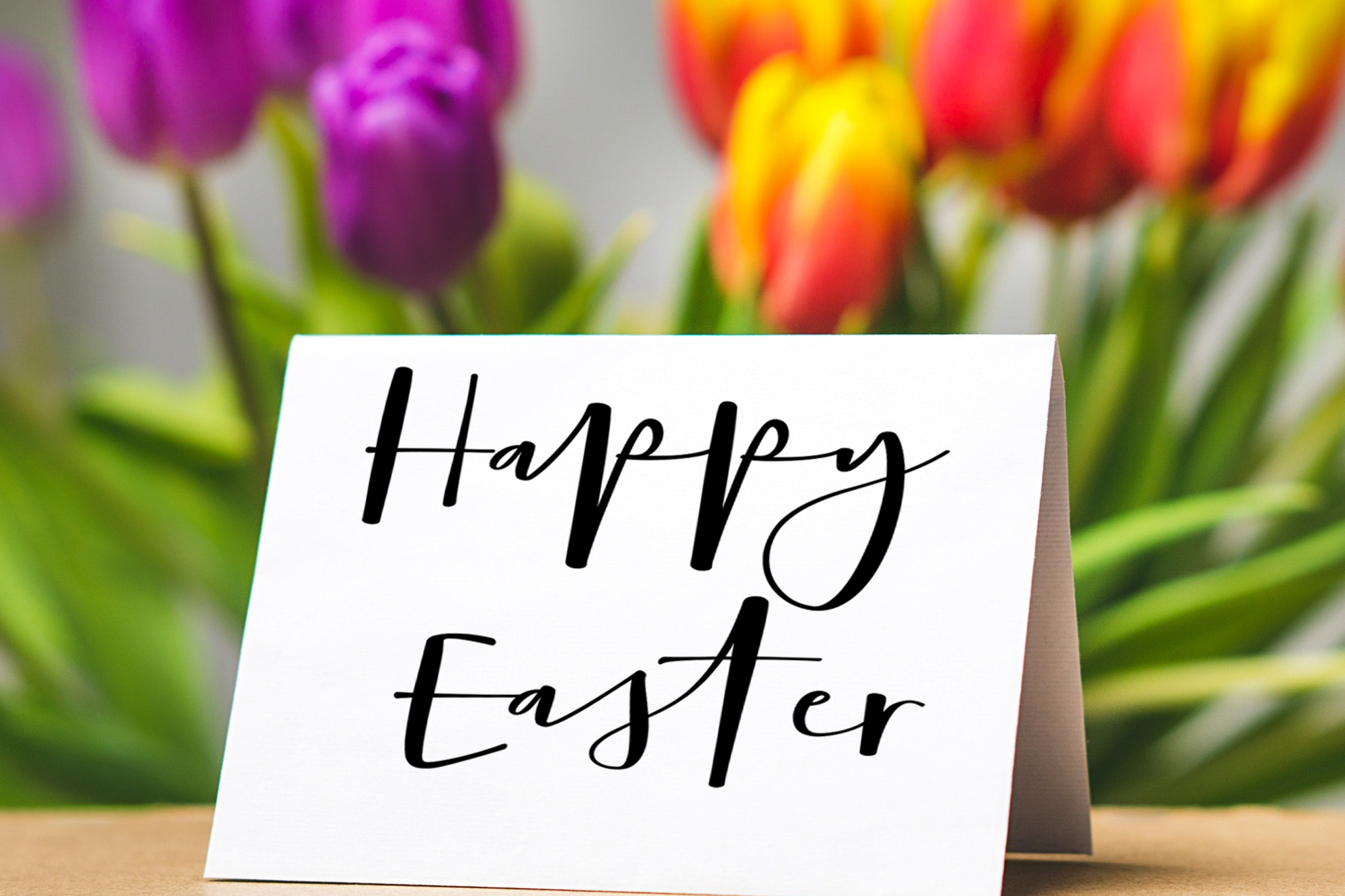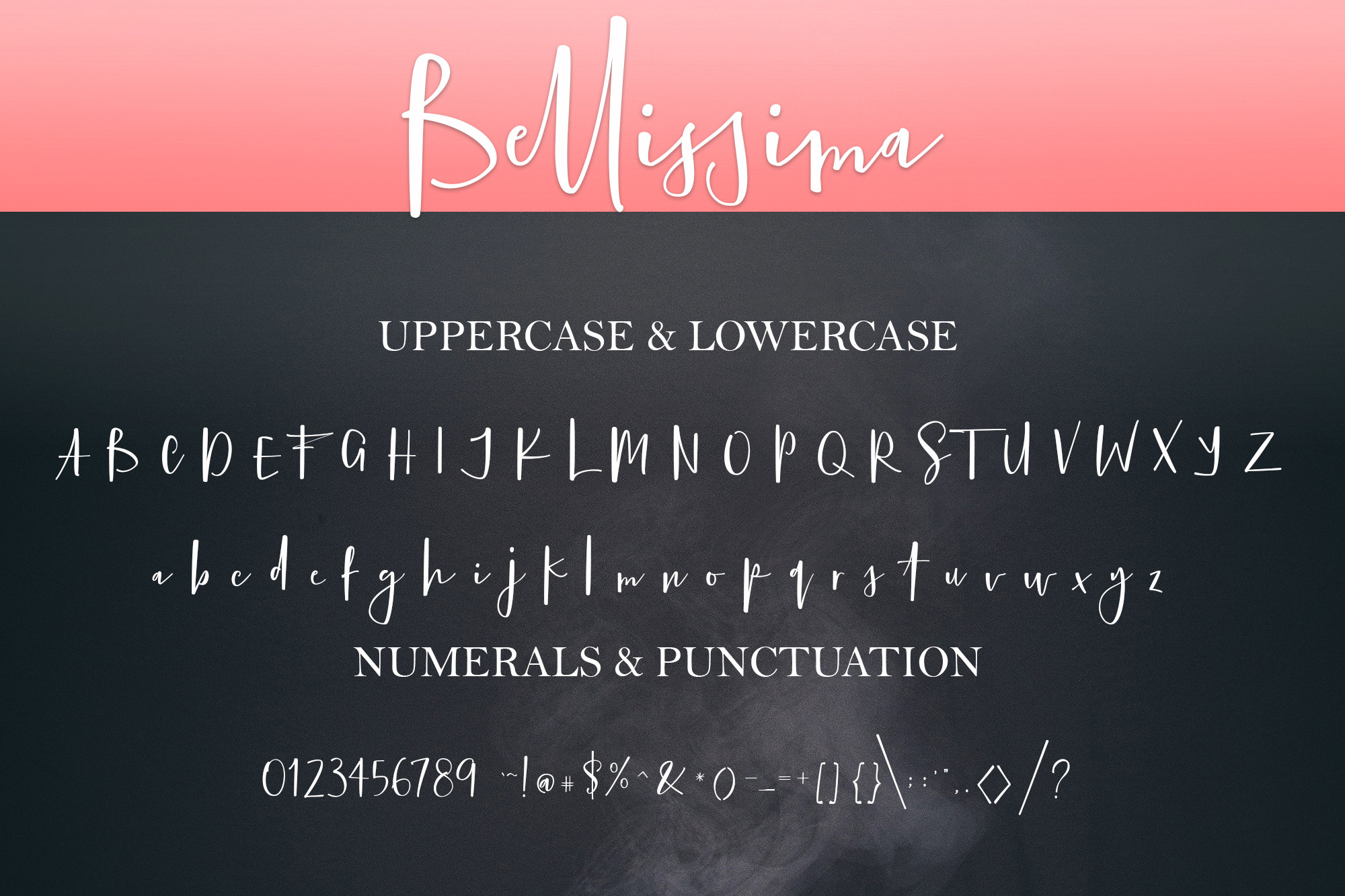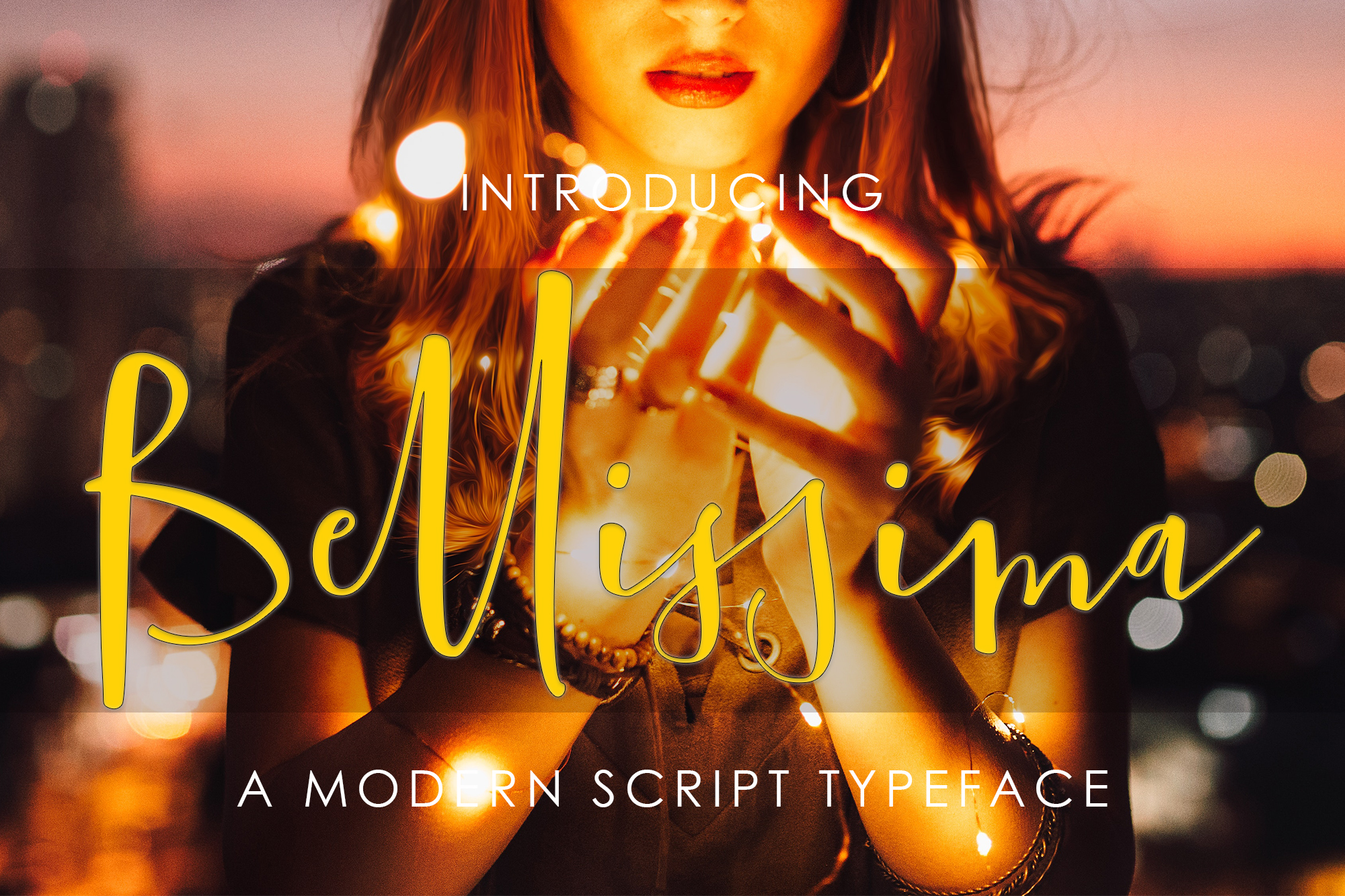
The Perfect Blend of Classic and Modern: Bellissima Font
There’s nothing quite like the thrill of creating something beautiful from scratch. Whether you’re a seasoned designer or just starting out, the blank page can be both exhilarating and intimidating. For me, it’s the moment when all the elements come together – the font, the color, the layout – that makes the design truly shine. And that’s exactly what happens when you use the Bellissima Font.
This bold and fun script font is a game-changer for designers looking to add a touch of personality to their work. With its perfect blend of classic style and modernity, Bellissima Font is the perfect choice for headlines and other display purposes. It’s a truly timeless typography that adds a level of sophistication and elegance to any design.
For designers, the Bellissima Font is a valuable asset that can elevate their work to the next level. Its versatility and unique style make it a must-have in any font collection, and its ease of use makes it a joy to work with.
Bellissima Font Key Features
- Unique Characteristics: Bellissima Font features elegant, cursive script with intricate details and flourishes, making it perfect for formal invitations, wedding designs, and high-end branding.
- Kerning and Ligatures: Includes advanced kerning and ligature pairs for precise typography, ensuring that letters and numbers align perfectly for a polished look.
Bellissima Font Review
I’ve had the chance to work with the Bellissima Font, and I must say it’s a visually stunning choice for any design project. Here’s what I like about it:
- ✨ Elegant and refined aesthetic that adds a touch of sophistication to any text-based design
- ✨ High-quality rendering, making it perfect for both digital and print-based applications
- ✨ Excellent legibility, even at smaller font sizes, making it ideal for body text or captions
However, as with any font, there are some limitations:
- ⚠️ Limited character set support, which may cause issues for non-Latin languages or special characters
- ⚠️ May not be suitable for bold or italic text, as the font’s design can become slightly distorted
Overall, I think the Bellissima Font is a great choice for designers looking to add a touch of elegance to their projects. While it may have some limitations, its high-quality rendering and refined aesthetic make it well worth considering. Just be sure to weigh the pros and cons before making a decision.
Bellissima Font is ideal for creating elegant and sophisticated designs. Use it for:
– Luxury branding and packaging
– High-end advertising and marketing materials
– Elegant digital presentations and reports
Alternatives to Bellissima Font
Playfair Display is a luxurious, high-end serif font ideal for creating elegant and sophisticated designs. It’s perfect for use in luxury branding, invitations, and high-end publications. Compared to Bellissima Font, Playfair Display has a more refined and classic look, making it suitable for formal occasions.
Comparison: While Bellissima Font is more modern and playful, Playfair Display is more traditional and elegant.
Great Vibes is a modern, elegant script font that’s perfect for creating eye-catching and stylish designs. It’s ideal for use in wedding invitations, event branding, and luxury packaging. Compared to Bellissima Font, Great Vibes has a more flowing and organic feel, making it suitable for creative and artistic projects.